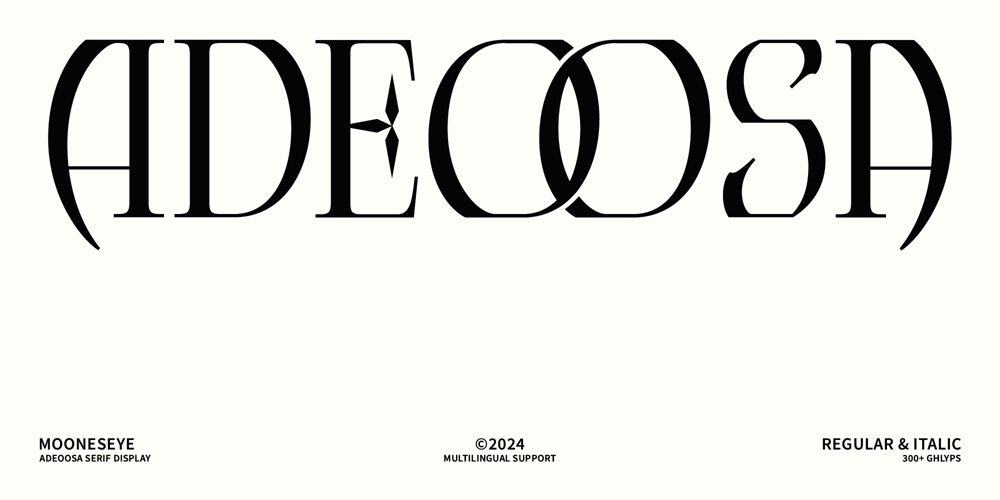
Adeoosa Font Family was designed by Elhaq Farid and published by Mooneseye Studio. Adeoosa contains 2 styles and family package options. Adeoosa is a serif font that blends masculine strength with modern elegance. Featuring serif details and a subtle Gothic touch, Adeoosa strikes a unique balance between classic style and contemporary flair. Its sophisticated and commanding presence makes it perfect for a variety of applications, including standout logotypes, attention-grabbing poster headers, stylish magazine layouts, and premium brand apparel.